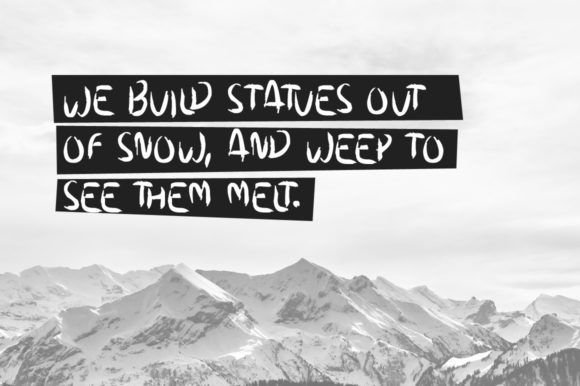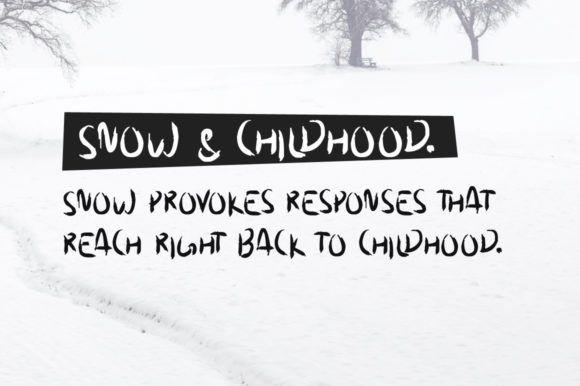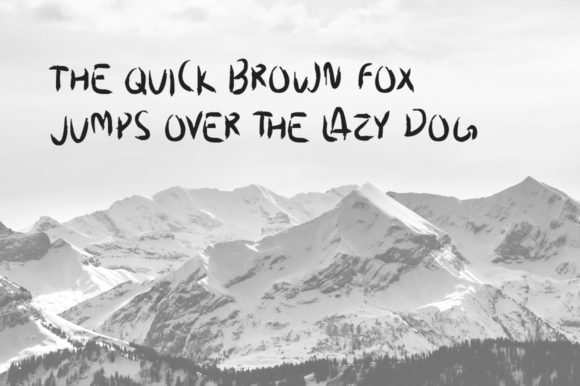
Dreamy Snow Font: The Ultimate Brush Font for Creative Designs
Are you a designer or crafter looking for a unique and creative font to elevate your designs? Look no further than the Dreamy Snow Font, a brand new brush font that’s perfect for a wide range of applications. In this article, we’ll explore the features and benefits of the Dreamy Snow Font, and show you how it can be used to create stunning designs.
What is Dreamy Snow Font?
The Dreamy Snow Font is a beautiful, hand-crafted brush font that’s designed to add a touch of elegance and sophistication to your designs. With its delicate and dreamy texture, this font is perfect for creating romantic and whimsical designs that capture the imagination.
Key Features of Dreamy Snow Font
- Brand new brush font: The Dreamy Snow Font is a fresh and original design that’s sure to make your designs stand out.
- Perfectly suited for stationery: Whether you’re designing wedding invitations, greeting cards, or stationery sets, this font is sure to add a touch of elegance and sophistication.
- Versatile design: The Dreamy Snow Font can be used for a wide range of applications, including logos, t-shirts, paper, print design, website headers, photo frames, flyers, music covers, posters, image sliders, and more.
Benefits of Using Dreamy Snow Font
So why should you choose the Dreamy Snow Font for your designs? Here are just a few benefits of using this amazing font:
- Add a touch of elegance: The Dreamy Snow Font adds a touch of elegance and sophistication to your designs, making them perfect for special occasions and events.
- Stand out from the crowd: With its unique and original design, the Dreamy Snow Font is sure to make your designs stand out from the crowd.
- Perfect for romantic designs: The dreamy and romantic texture of this font makes it perfect for creating designs that are romantic, whimsical, and imaginative.
- Save time: With its easy-to-use design, you can quickly and easily create stunning designs that look professional and polished.
Design Ideas Using Dreamy Snow Font
So what can you create with the Dreamy Snow Font? Here are just a few design ideas to get you started:
- Wedding invitations: Create beautiful and elegant wedding invitations that set the tone for the big day.
- Stationery sets: Design stunning stationery sets that include notecards, journals, and more.
- T-shirt designs: Create unique and eye-catching t-shirt designs that are perfect for casual wear.
- Posters and flyers: Design stunning posters and flyers that grab attention and communicate your message.
- Website headers: Add a touch of elegance to your website headers and make a lasting impression on your visitors.
| Font Name | Dreamy Snow Font |
| Author | Shattered Notion |
In conclusion, the Dreamy Snow Font is a beautiful and versatile brush font that’s perfect for designers and crafters who want to add a touch of elegance and sophistication to their designs. With its unique and original design, this font is sure to make your designs stand out from the crowd. So why wait? Download the Dreamy Snow Font today and start creating stunning designs that capture the imagination!
Whether you’re a seasoned designer or a crafter just starting out, the Dreamy Snow Font is a must-have font that’s sure to inspire your creativity and take your designs to the next level.